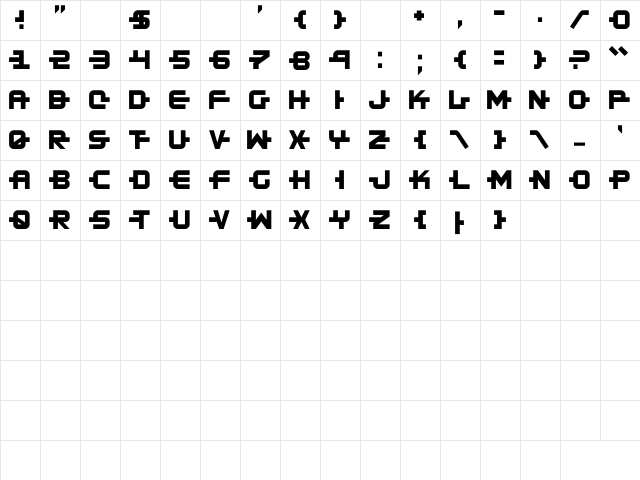
Kinex X Regular Font Preview
Kinex X Regular
Kinex X Regular Font Details
Design Context for Kinex X Typeface
Kinex X is a composed and adaptable typeface that performs quietly and consistently across a wide range of design contexts.